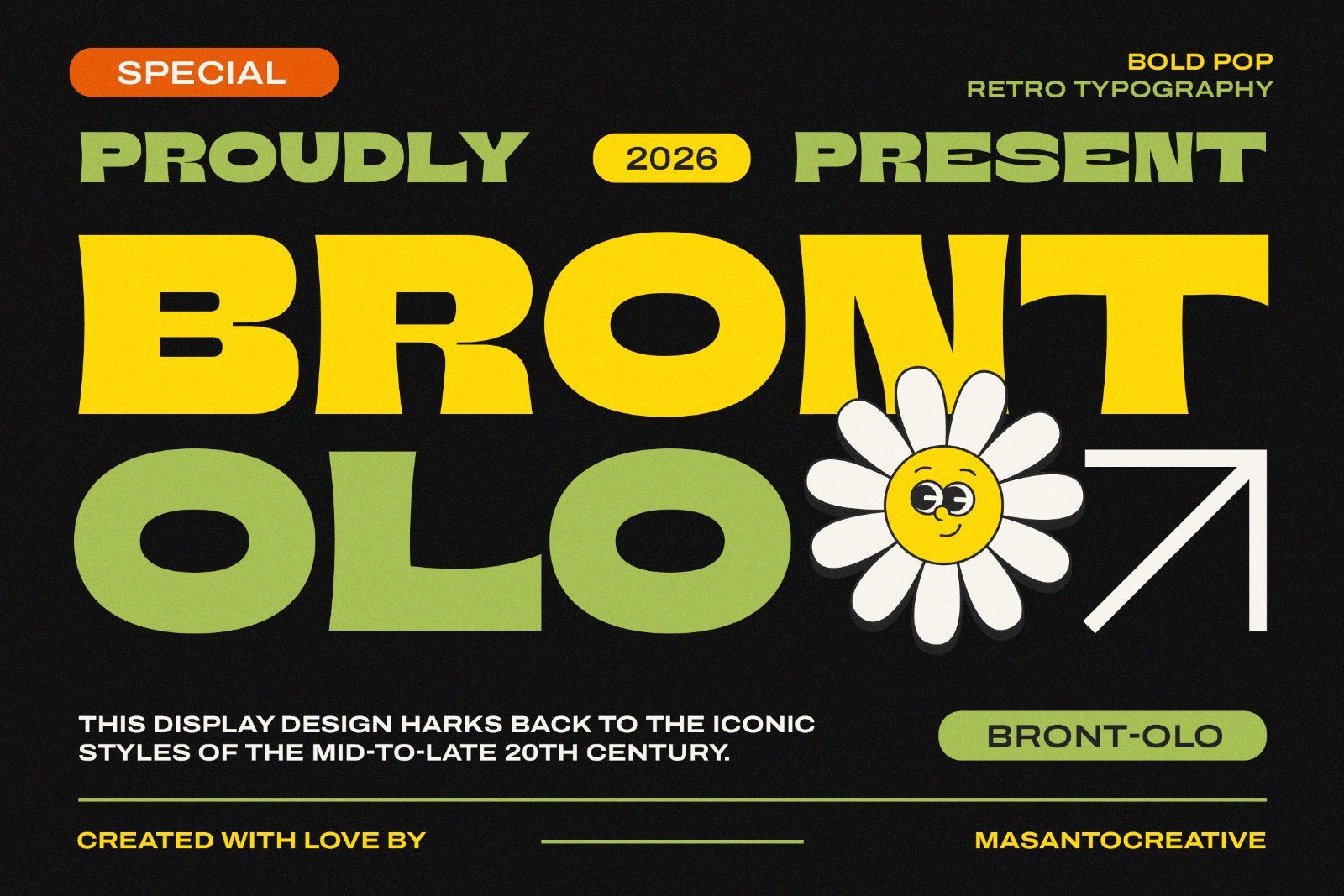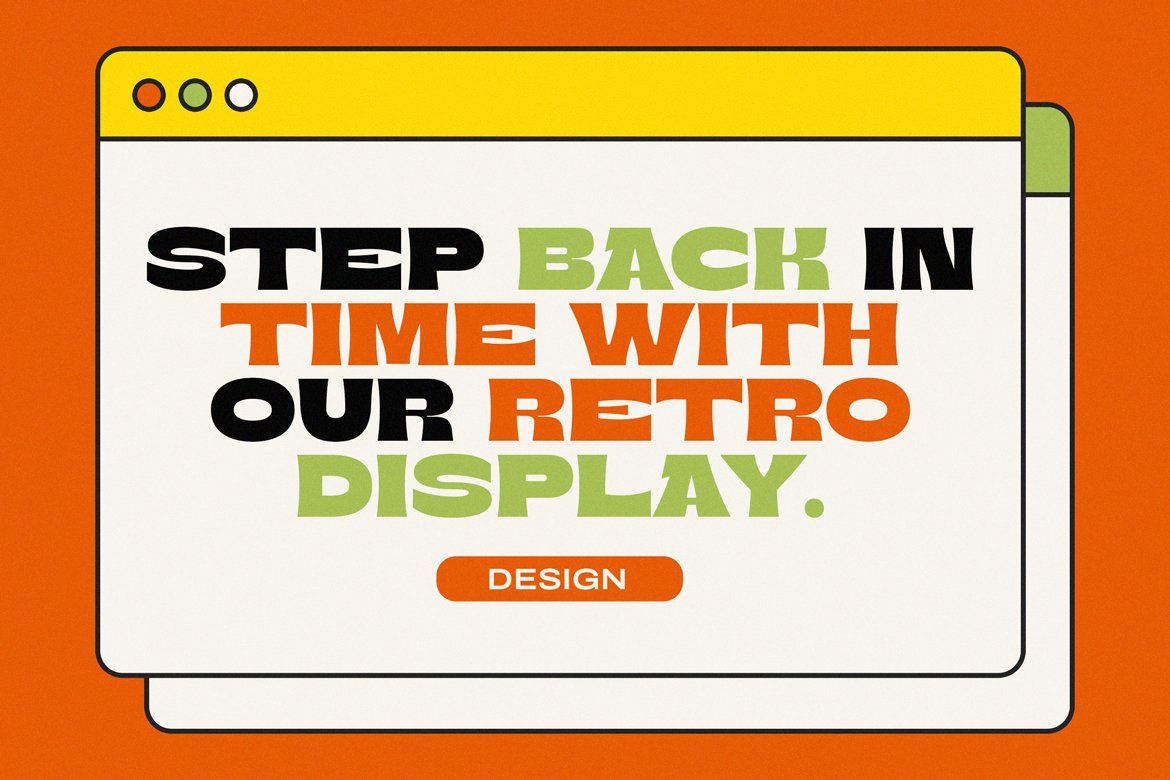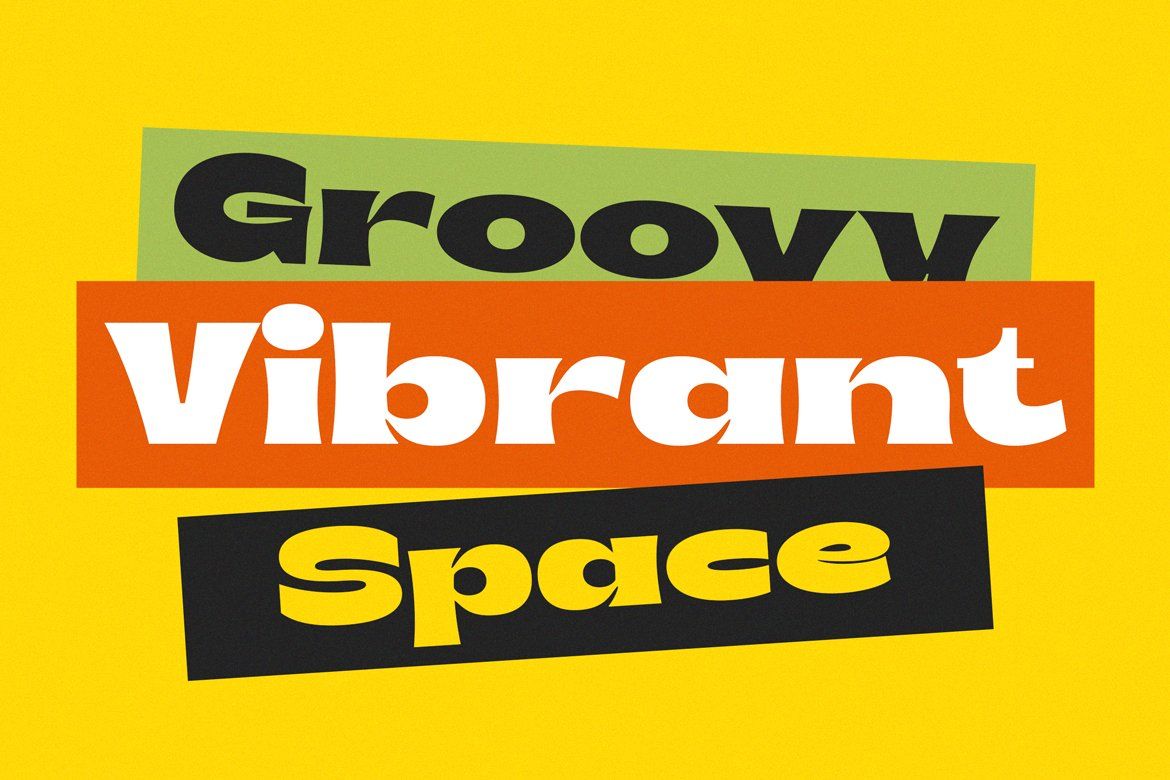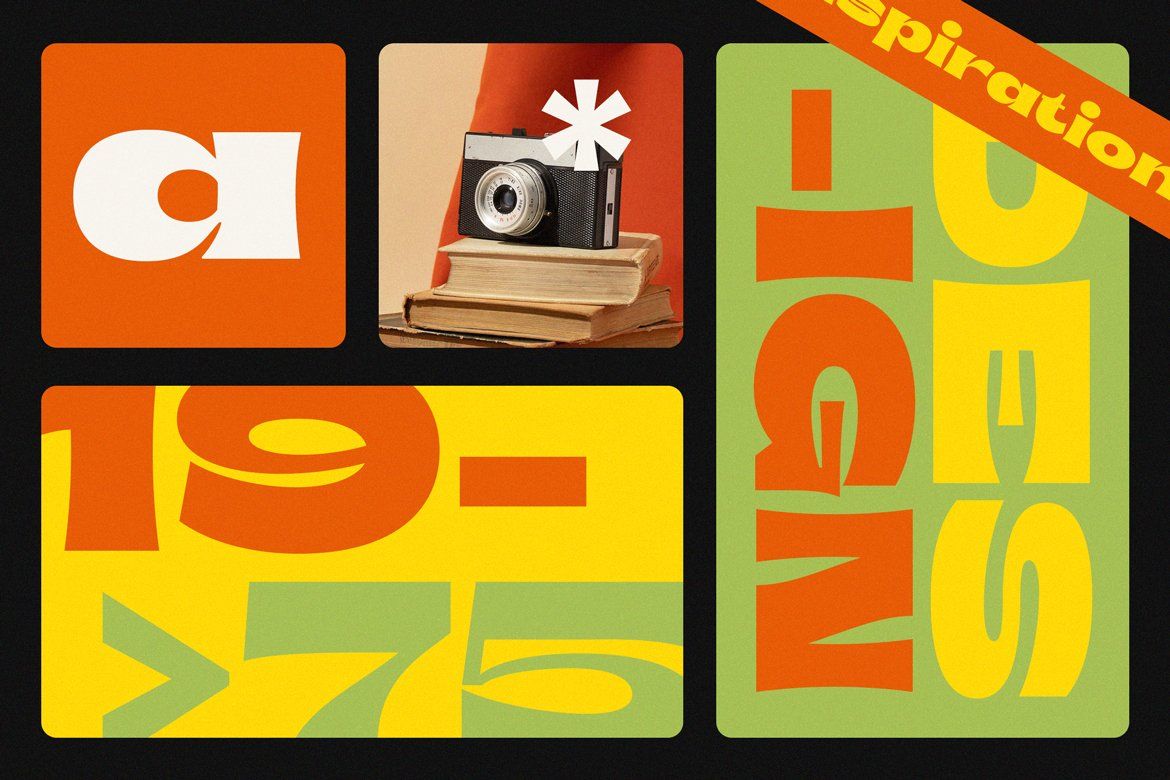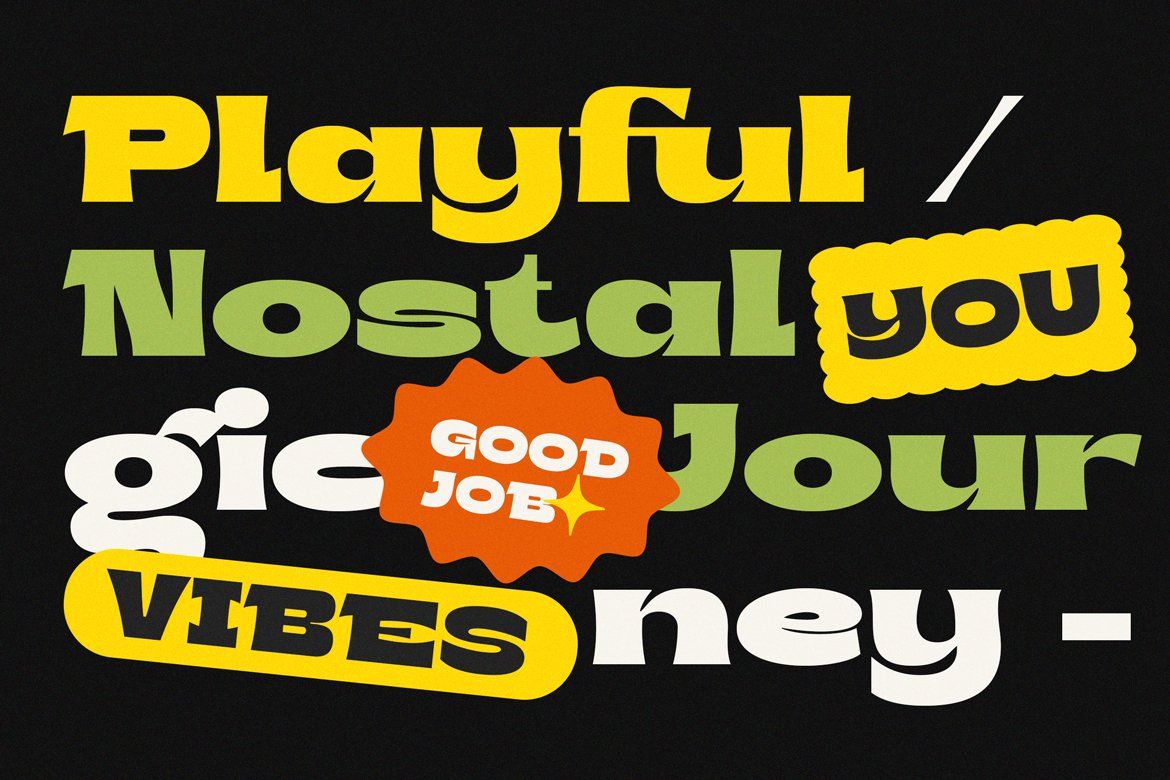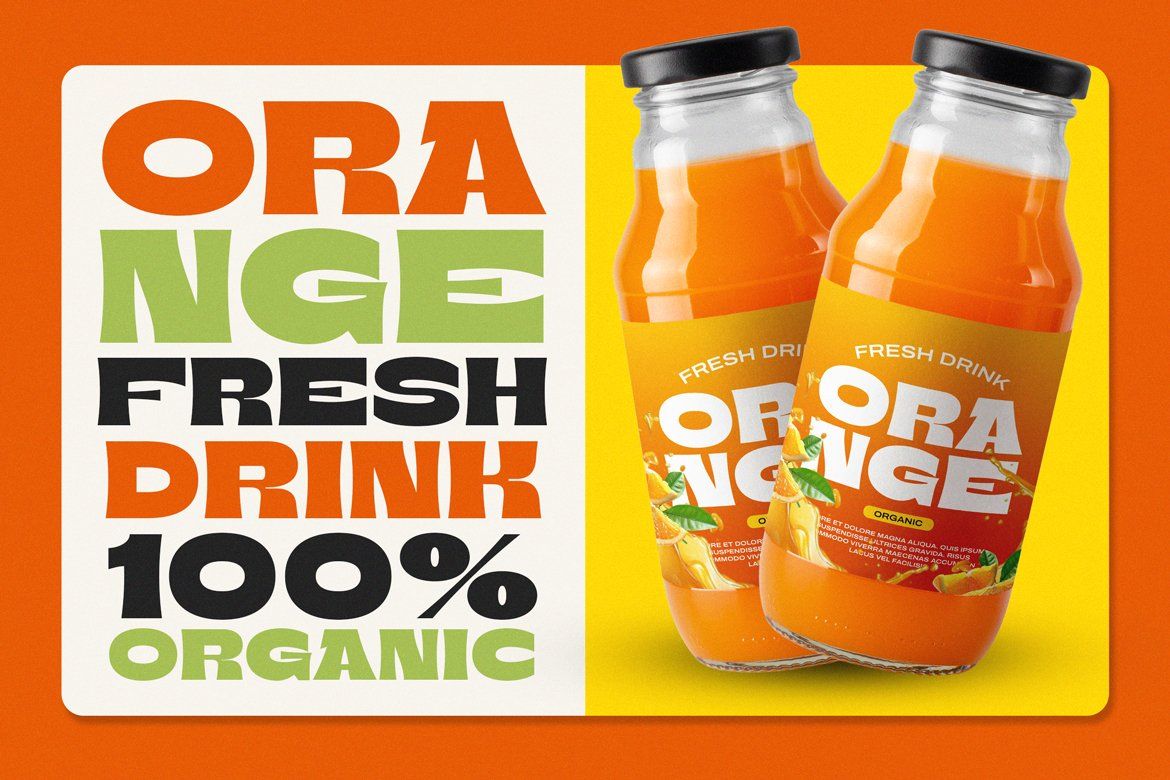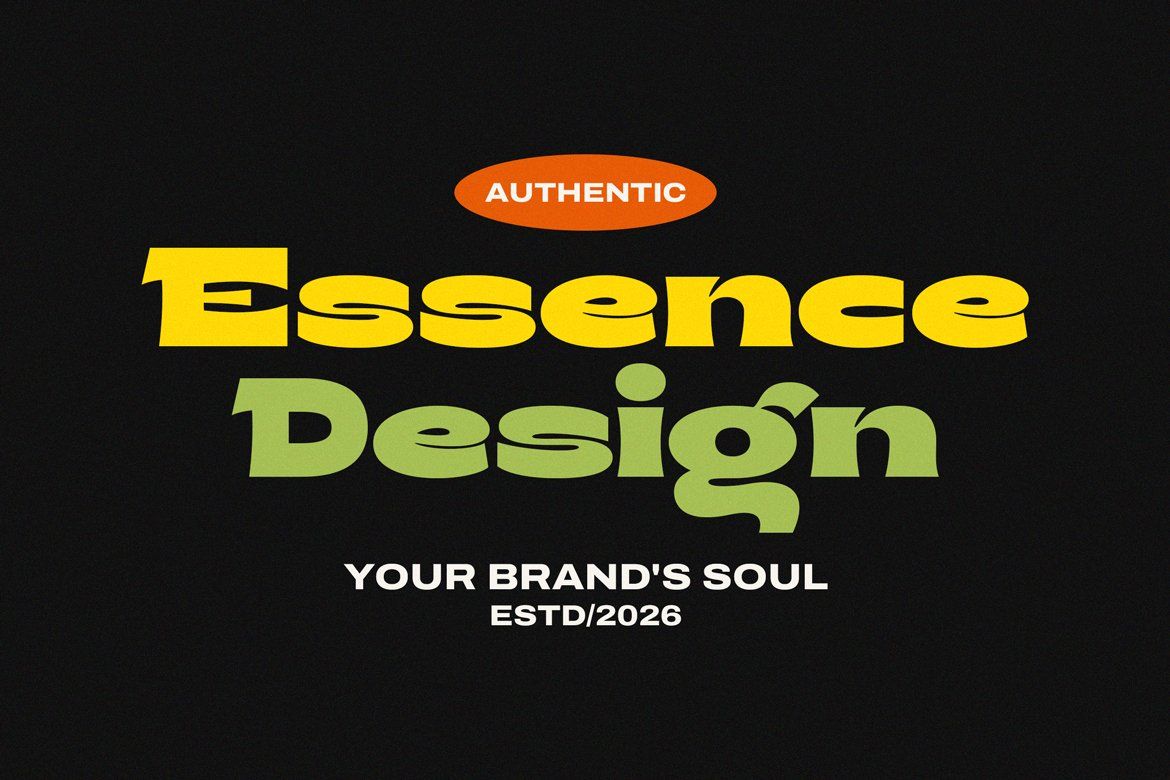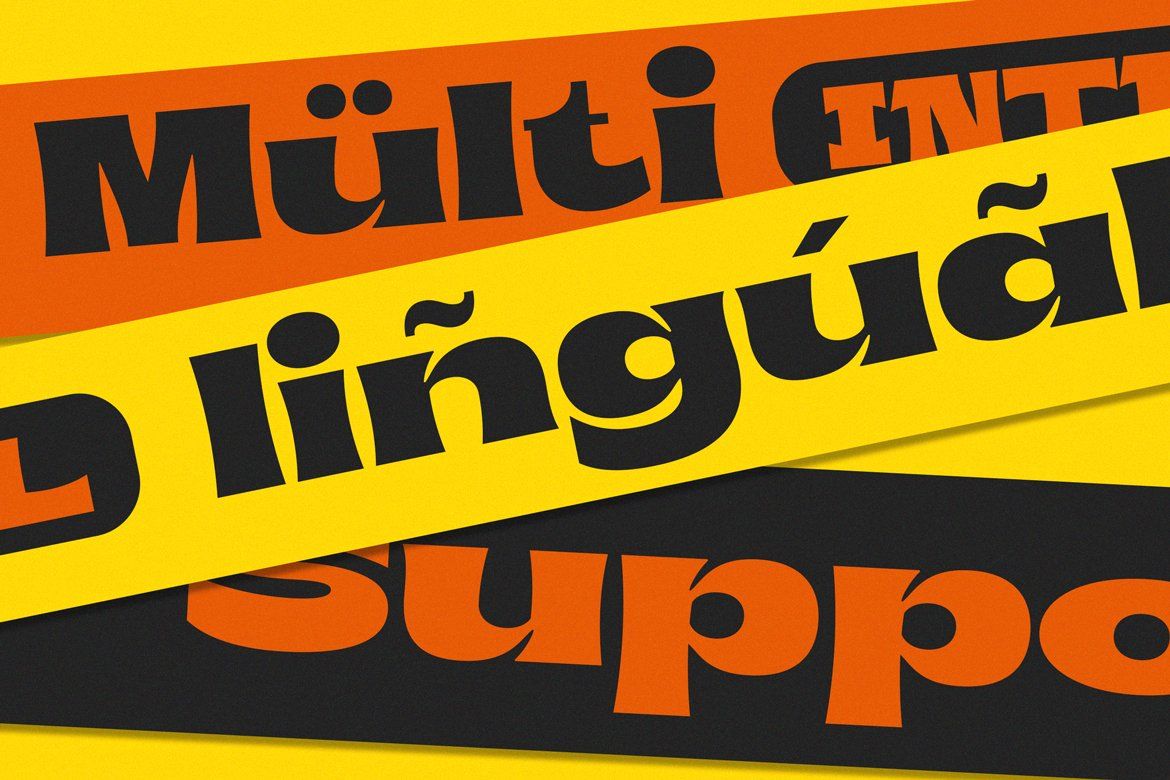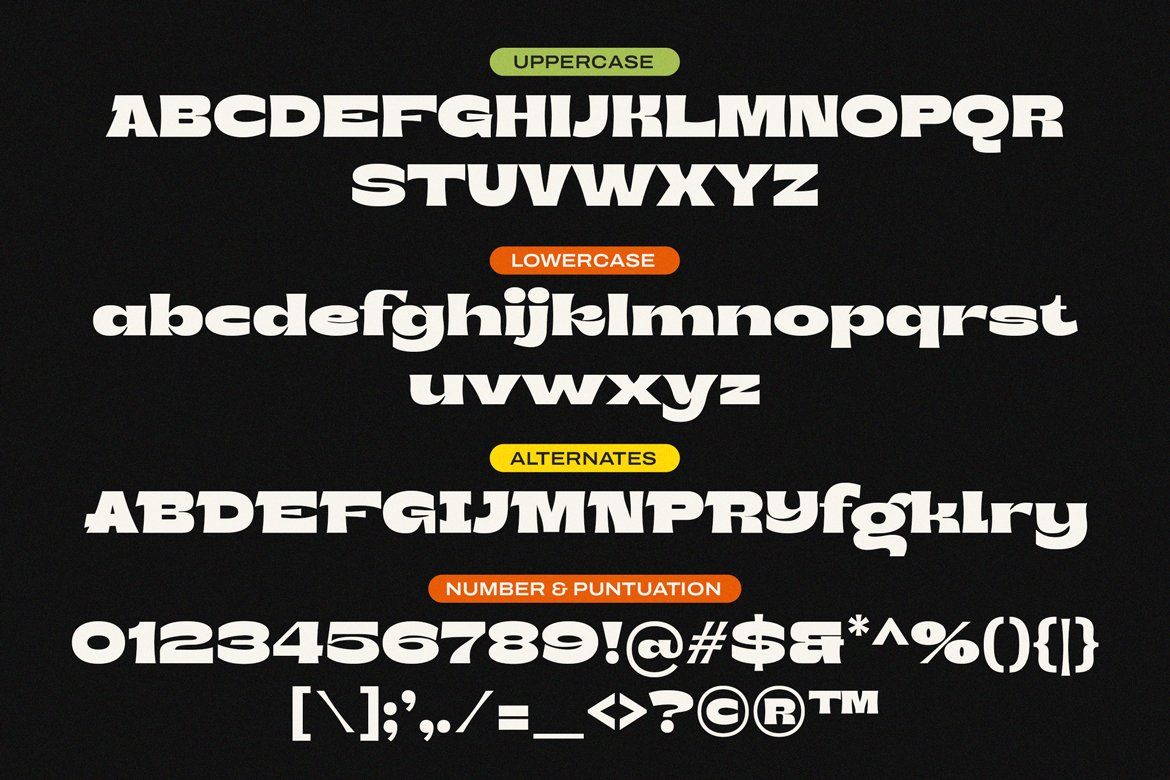
Bront-Olo is a retro groovy display font inspired by the bold pop typography of the 60s–70s era. Featuring chunky curves, playful shapes, and a warm nostalgic feel, this typeface brings vibrant vintage energy to any design project.
Perfect for branding, packaging, posters, social media graphics, vintage ads, children’s design, merchandise, sticker design, editorial layouts, and creative retro visuals, Bront-Olo gives every composition a fun, expressive, and eye-catching personality.
This font includes uppercase, lowercase, alternates, numbers, punctuation, and multilingual support, making it versatile for both modern and nostalgic design needs.
• Retro Groovy Display Typeface
• Bold & Playful Shapes
• 70s Pop Typography Style
• Alternates Included
• Numbers & Punctuation
• Retro Branding & Logos
• Groovy Posters
• Packaging & Labels
• Kids & Fun Design
• Social Media Templates
• Vintage Ads
• Stickers & Merch
• Creative Headlines
• Ligature & Stylistic alternate
Bring back the joyful and colorful spirit of the seventies with Bront-Olo!